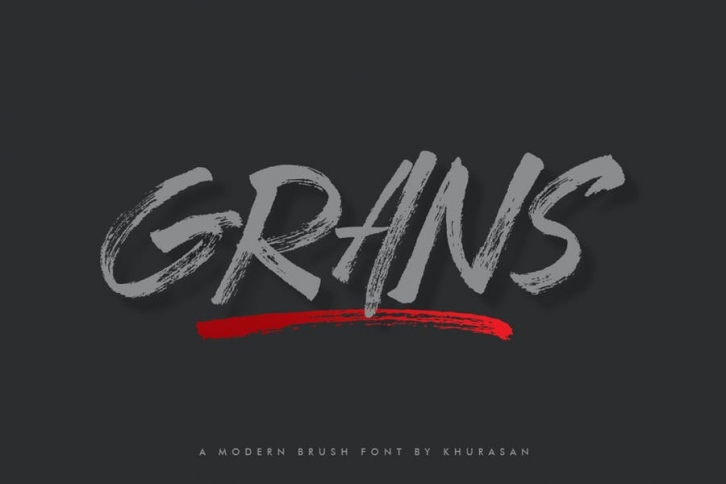
Grans Brush Font Download
The Grans is a fresh brush font, elegant and modern feel character set. The Grans font as well as multi-lingual support, swashes, numerals, & punctuation.